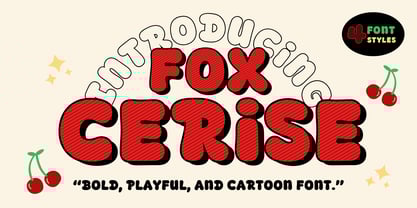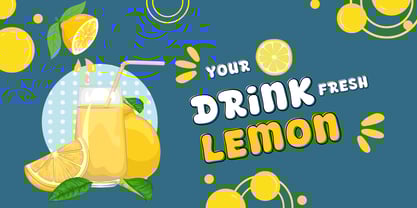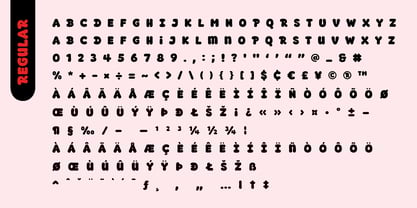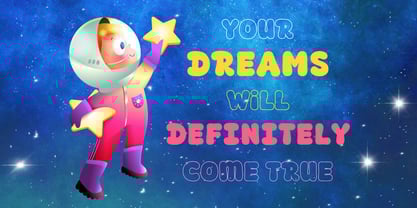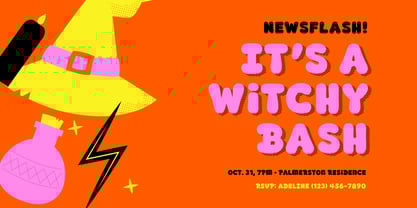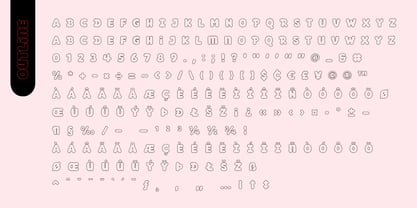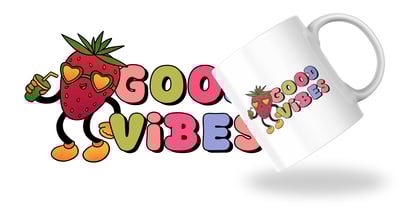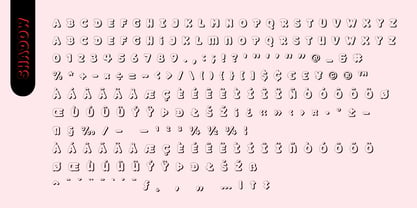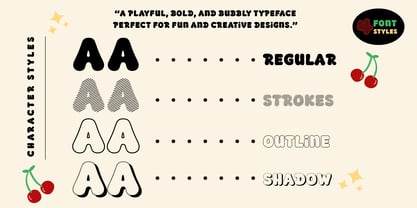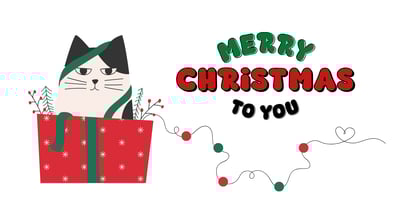
Fox Cerise
by Fox7
The Fox Cerise Font Family was designed by Rattana Rattanawan and published by Fox7. Fox Cerise contains 4 styles and family package options.
Fox Cerise is a fun and friendly font that brings a burst of joy to your designs. With its chubby, rounded letterforms and cheerful comic style, Fox Cerise is perfect for kids’ projects, playful branding, comics, games, posters, greeting cards, and more.
This font family comes with 4 unique styles, giving you flexible options to mix and match for a dynamic look. Whether you want to create colorful headlines, eye-catching packaging, or cute invitations, Fox Cerise will make your text pop with personality.
Perfect for:
🎉 Kids products
🎨 Birthday cards
🎯 Playful branding
🗯️ Comic books
🧁 Food & sweets packaging
Bring your designs to life with Fox Cerise, and let the fun begin!